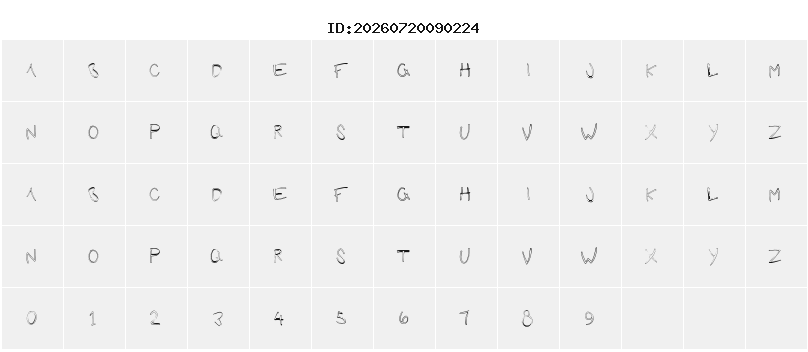
FutureGirlfriend Preview
• Font Name: FutureGirlfriend
• Full Font Name: FutureGirlfriend
• Version: Version 1.00 August 13, 2012, initial release
• Designer: Max Infeld
• Manufacturer: Xerographer Fonts
• Description: Made by Skarlet at TwinPalms Chico,CA
About FutureGirlfriend.ttf